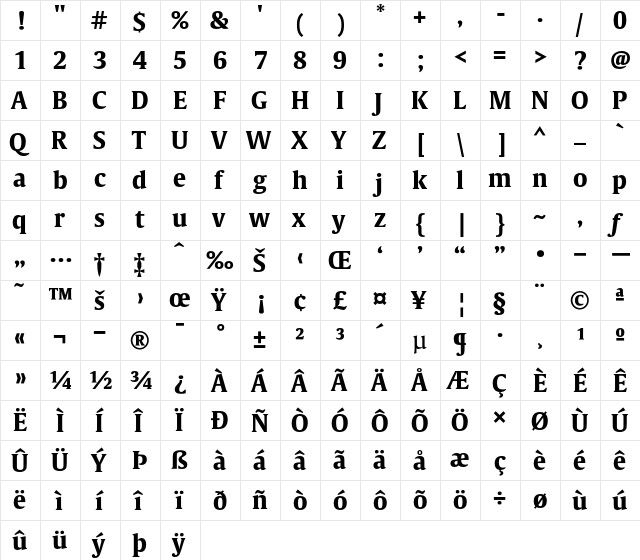
Gulliver Bold Regular
Design Context for Gulliver Bold Typeface
Gulliver Bold takes a measured approach to typography — its balanced proportions and neutral character make it a reliable workhorse for both digital and print work. Its bold stroke weight gives it real presence on the page.